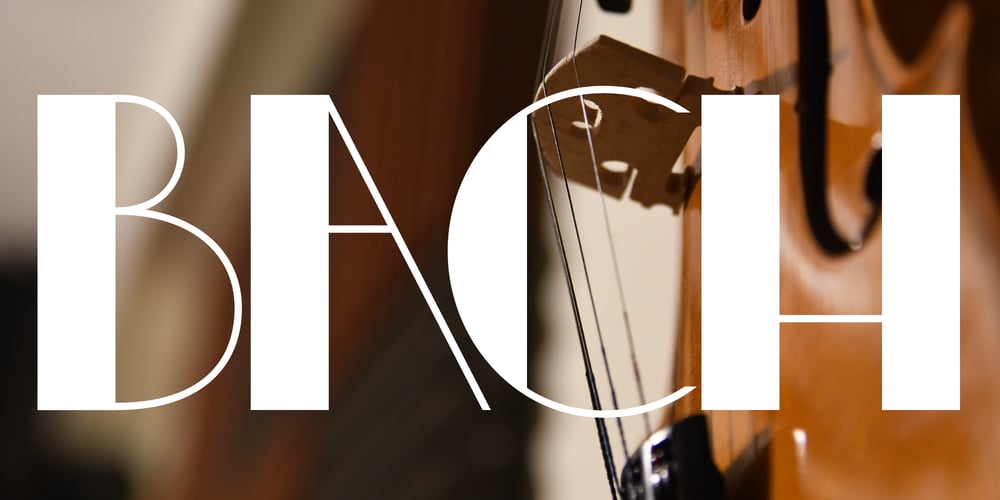
Decorretro
Decorretro font
Decorretro Font Family was designed by Yixiao Zhang and published by Sorriso Design. Decorretro contains 1 styles and family package options. Introducing a stunning geometric Art Deco style typeface, inspired by the retro aesthetics of 1930s Shanghai posters. This font design boasts clean, crisp lines and a modern look while still honoring the classic design elements of the past. Its carefully crafted curves and angles create a perfect balance between simplicity and sophistication, making it an excellent choice for a wide range of design projects. This typeface is sure to captivate and engage your audience, adding a touch of timeless elegance to any design.